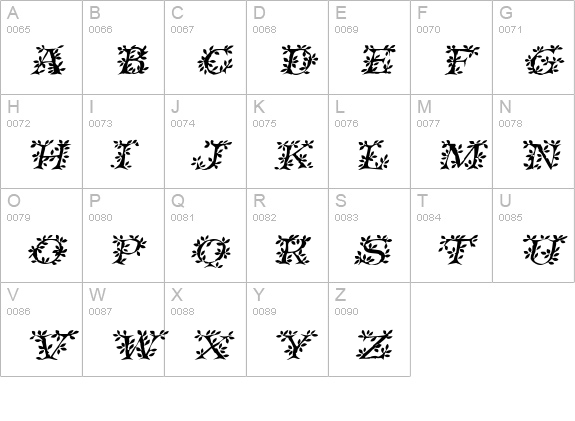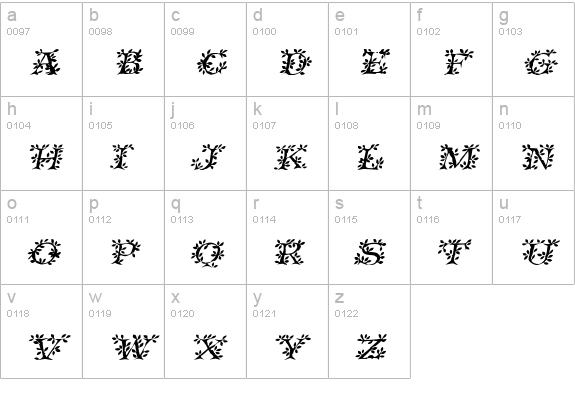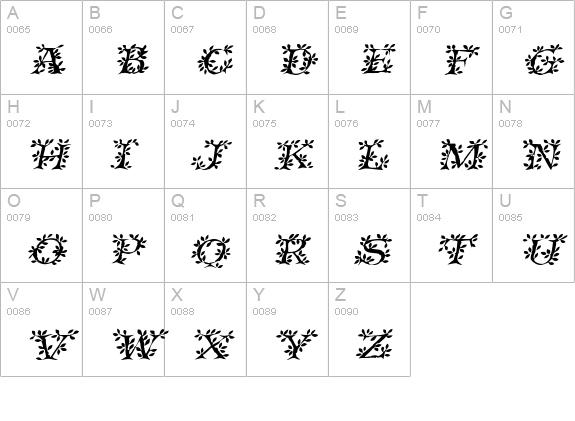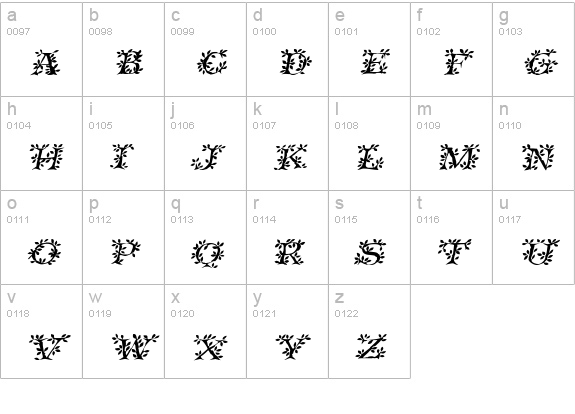
IvyDisplayCaps Italic Font Details
IvyDisplayCaps Italic is a distinctive, italic variant in the IvyDisplayCaps typeface family \xE2\x80\x94 well suited to design and typography projects.
IvyDisplayCaps Italic font is a stunning display typeface that exudes elegance and sophistication. Its slanted and italicized design adds a touch of artistic flair, making it perfect for attention-grabbing headlines, logos, and branding materials. With its unique and distinctive letterforms, IvyDisplayCaps Italic font is bound to make a lasting impression on any project. Its graceful curves and fine details create a sense of beauty and refinement, making it a standout choice for luxury and high-end designs. This font is not only visually appealing but also highly versatile. It seamlessly blends classic and modern elements, allowing it to be used in a wide range of applications. Whether you're designing a wedding invitation, a fashion magazine spread, or a contemporary website, IvyDisplayCaps Italic font will elevate your design to new heights. And the best part? IvyDisplayCaps Italic font is available for free download at FontsMarket.com. This means that you can easily access and utilize this gorgeous font in your projects without any hassle. It's a fantastic opportunity to enhance your designs with a high-quality and stylish typeface, all without breaking the bank. So why wait? Get your hands on IvyDisplayCaps Italic font today and let it bring a touch of elegance and sophistication to your creative endeavors.